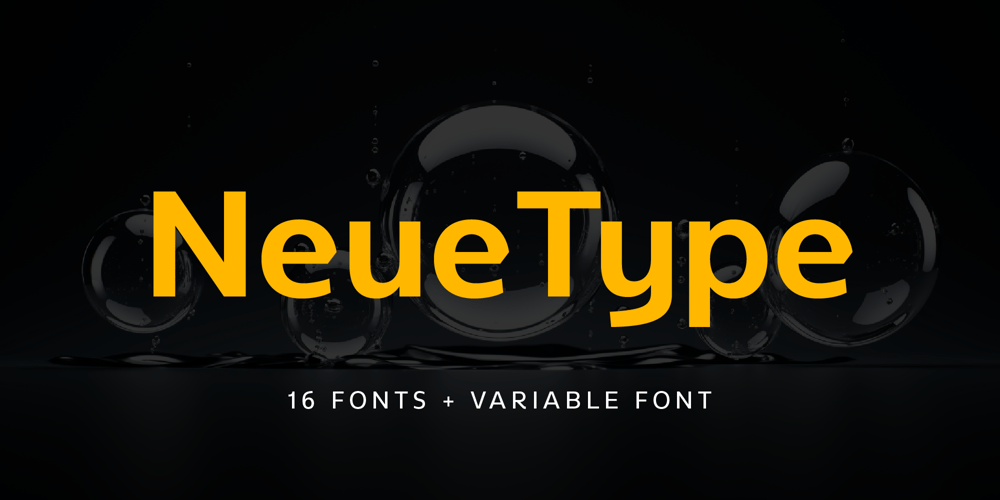
NeueType Font Family was designed by Nikolay Savchuk and published by NicolassFonts. NeueType contains 17 styles and family package options. NeueType is a modern sans serif font family. This family is ideally suited for web and print use. It comes in 16 weights, 8 uprights, matching Italics, and Variable font. Each weight includes 549 glyphs and 22 OpenType features (including Ligatures, Case Sensitive Forms, Tabular Figures, and Typographic Variants).